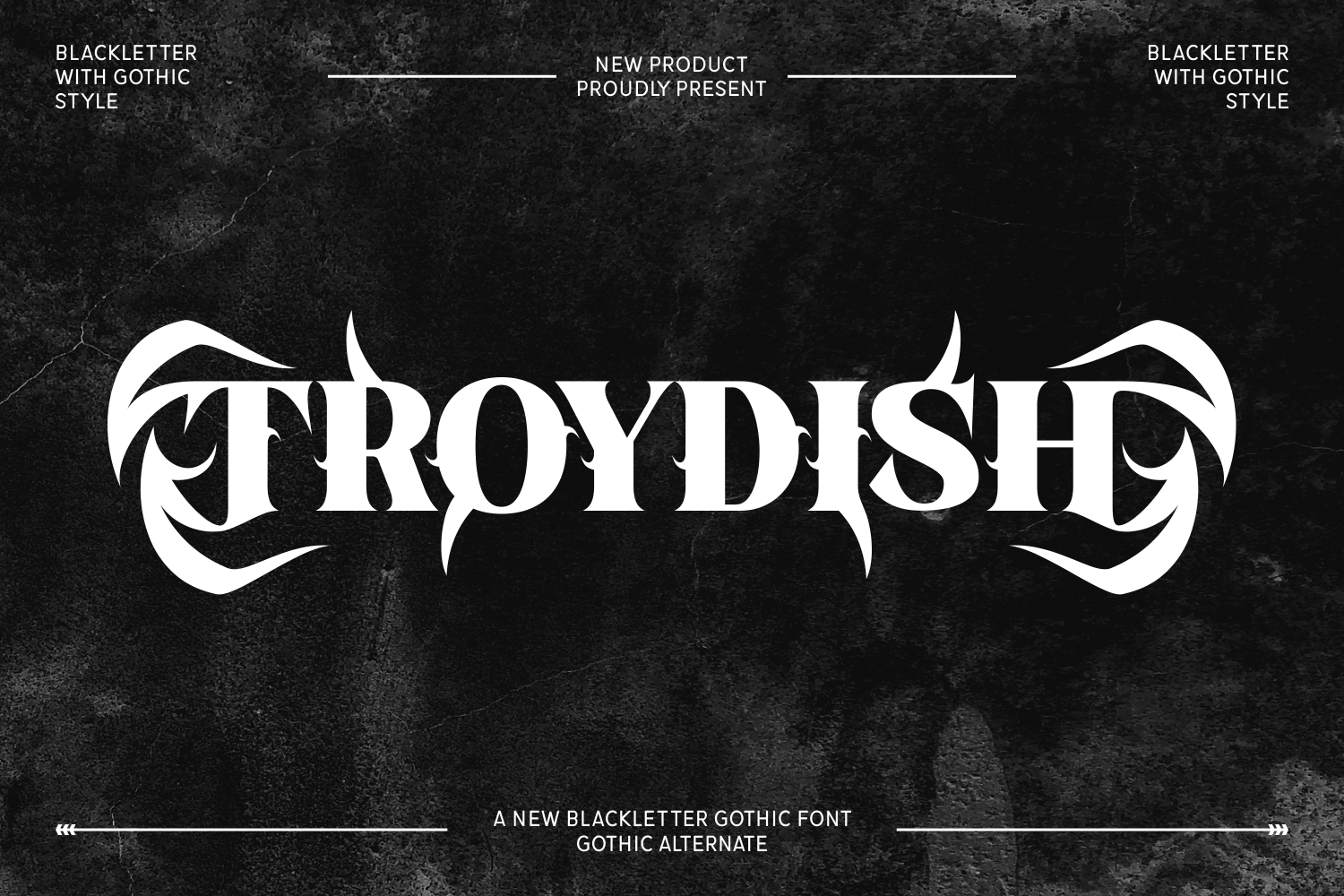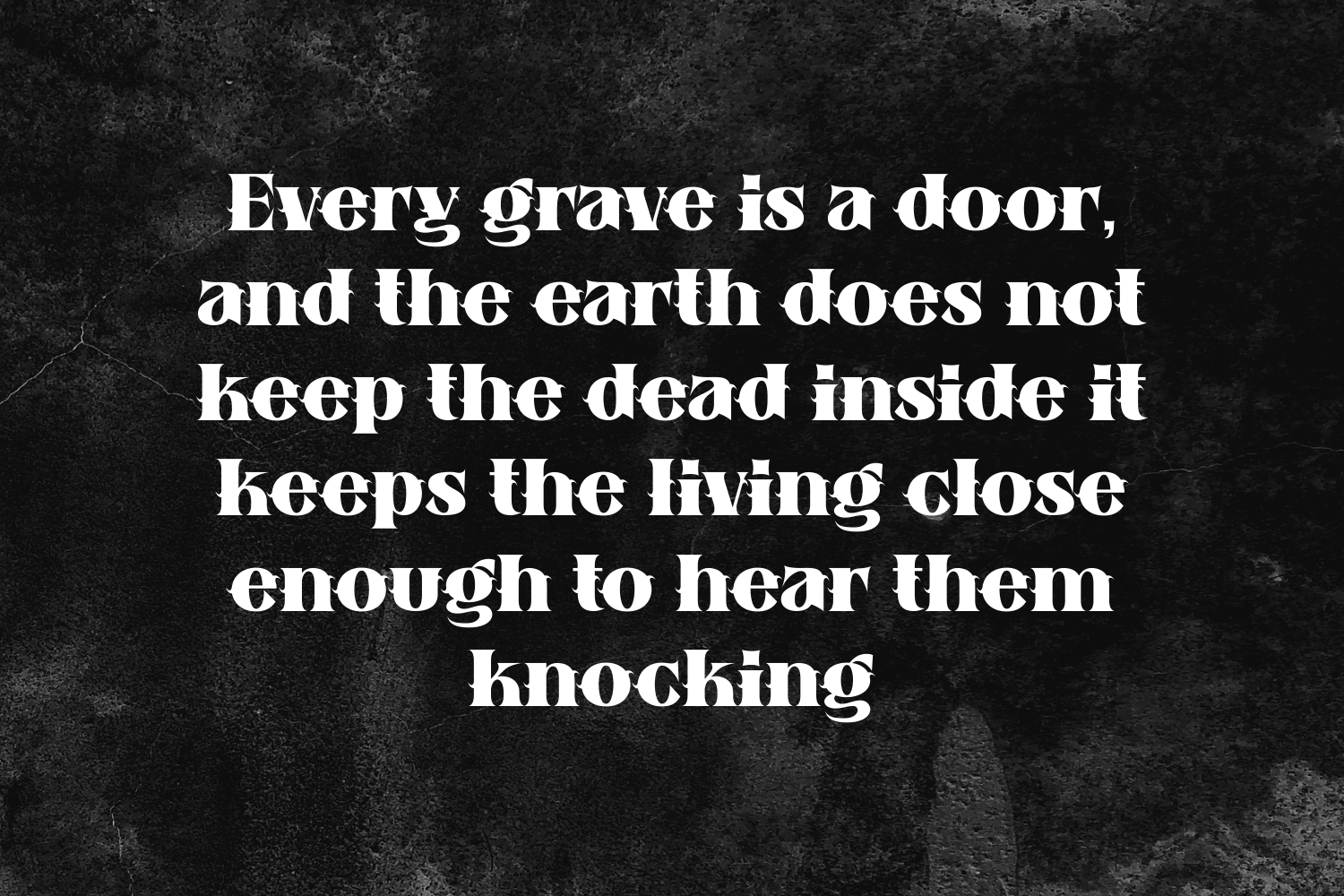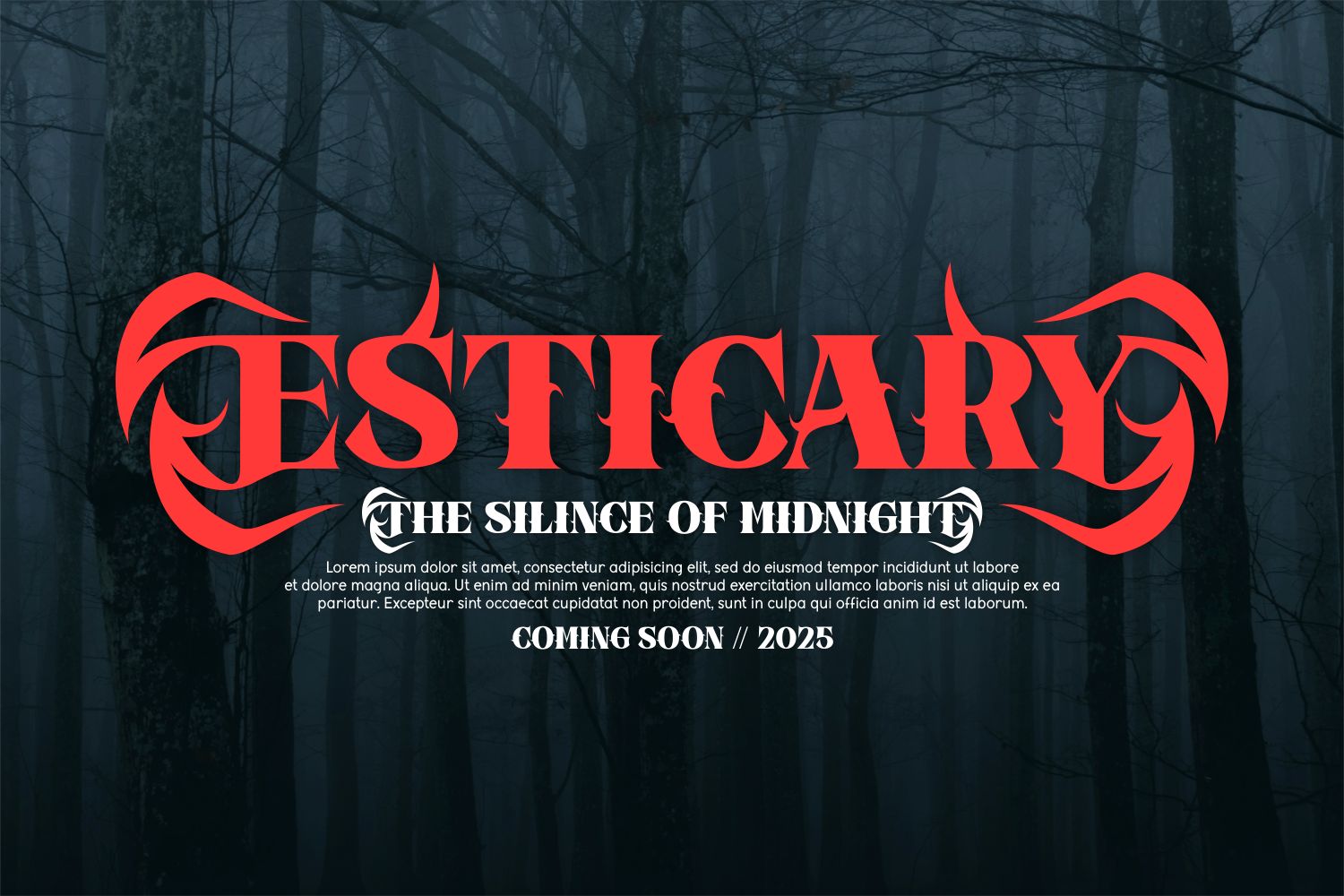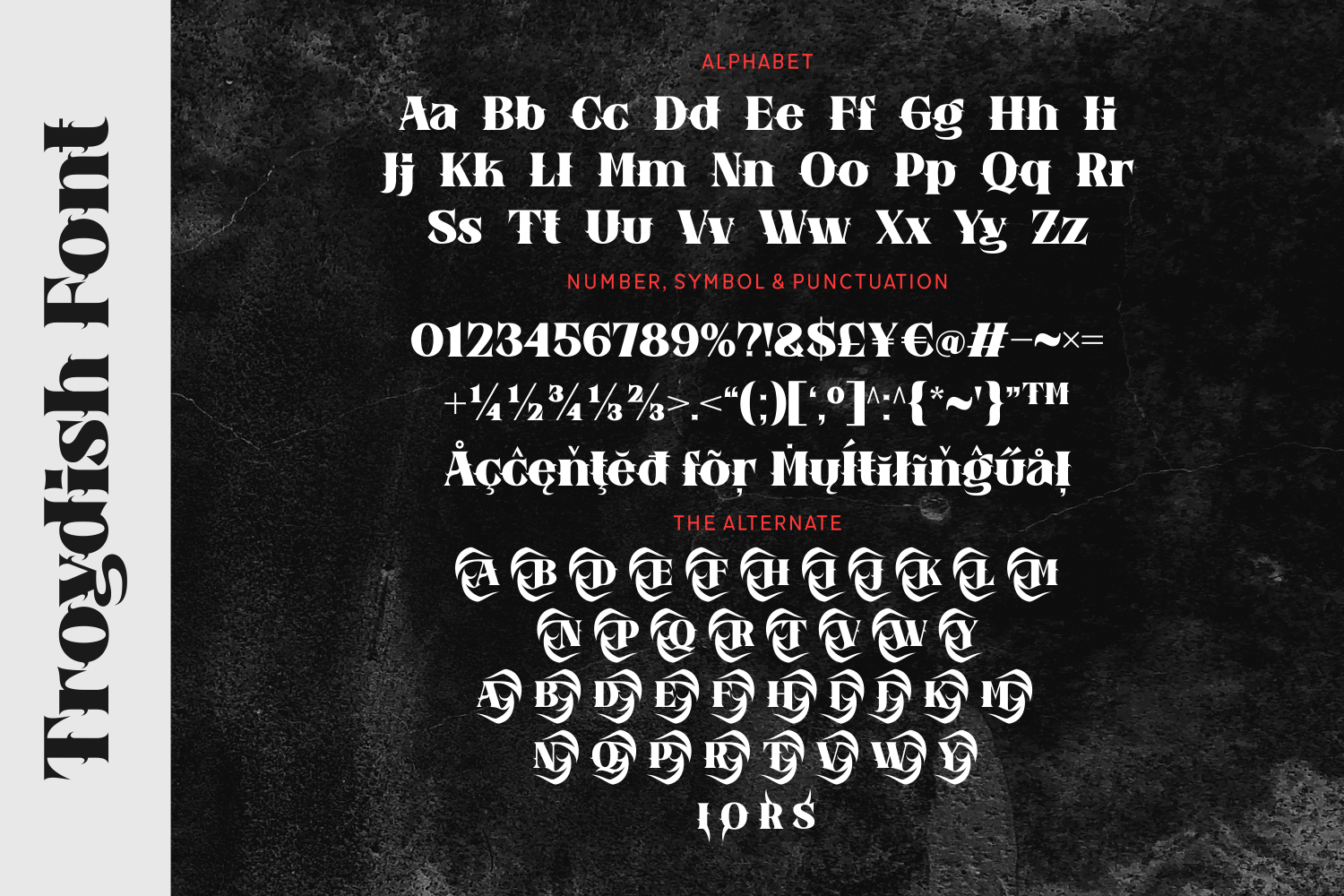
Troydish is an aggressive and highly stylized blackletter font with tribal-inspired edges and gothic intensity. Designed for extreme impact, it’s a perfect match for metal bands, tattoo designs, gaming titles, and horror-themed visuals.
Its unique letterforms offer alternate glyphs that push the limits of gothic aesthetics. This is not just a font — it’s a statement of bold identity.